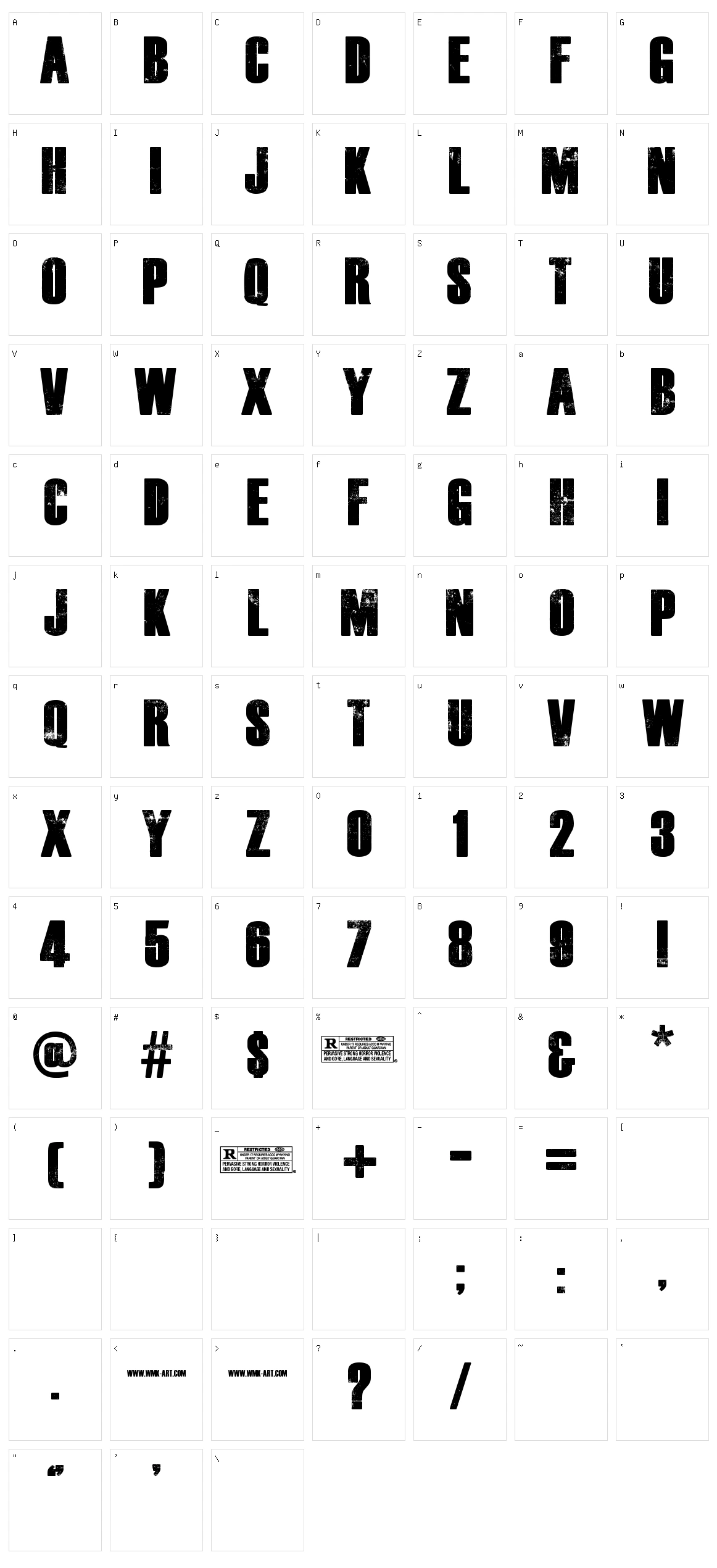
The free font Dead Kansas is carefully designed by The Wondermaker, showcasing a thoughtful balance of creativity and usability and falls under the Eroded font style. When you download the ZIP file, it contains only 146.33 KB of font files, making it lightweight and quick to download. Please review the license details below to understand permitted usage and distribution rights. If license information is not available, we recommend using this font for personal projects only or contacting the author directly for commercial usage permissions.